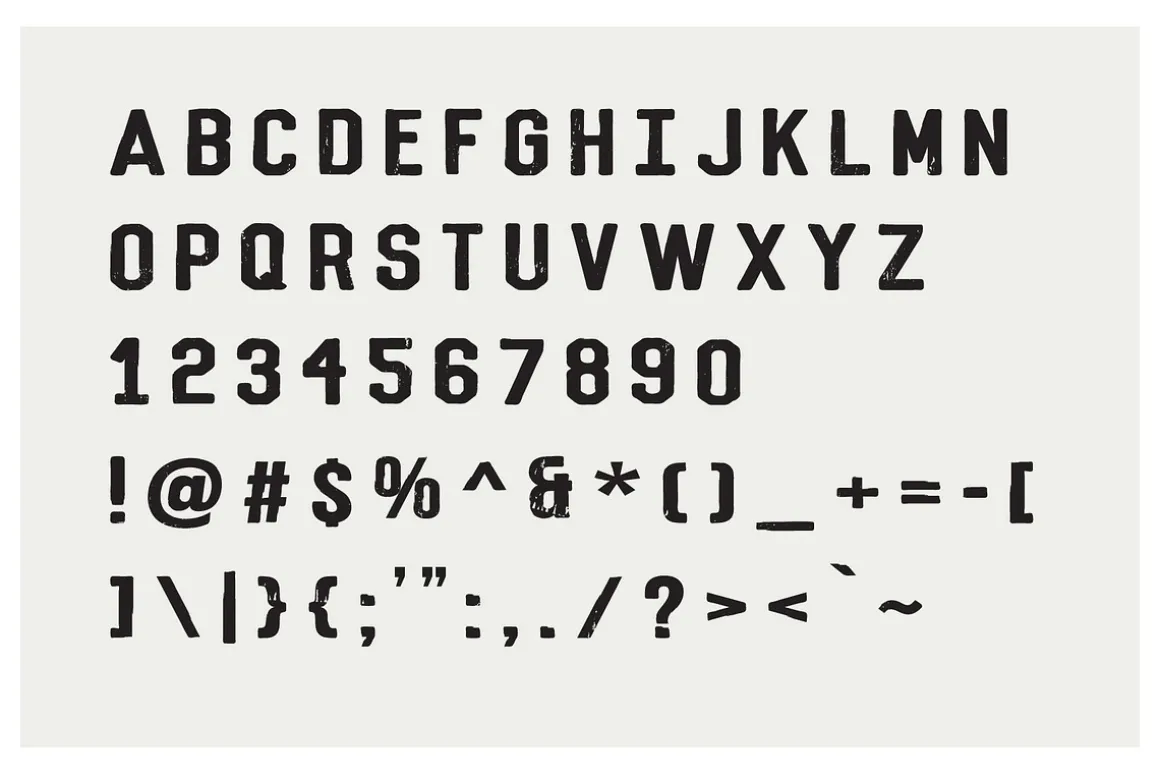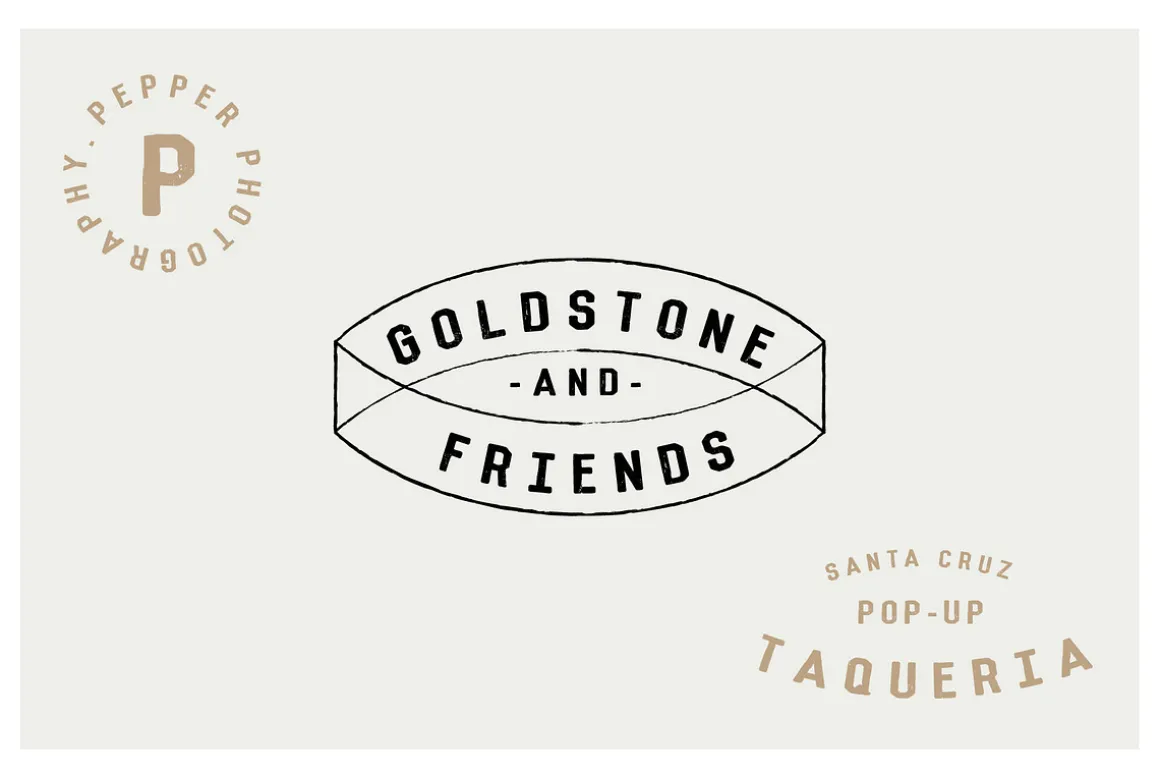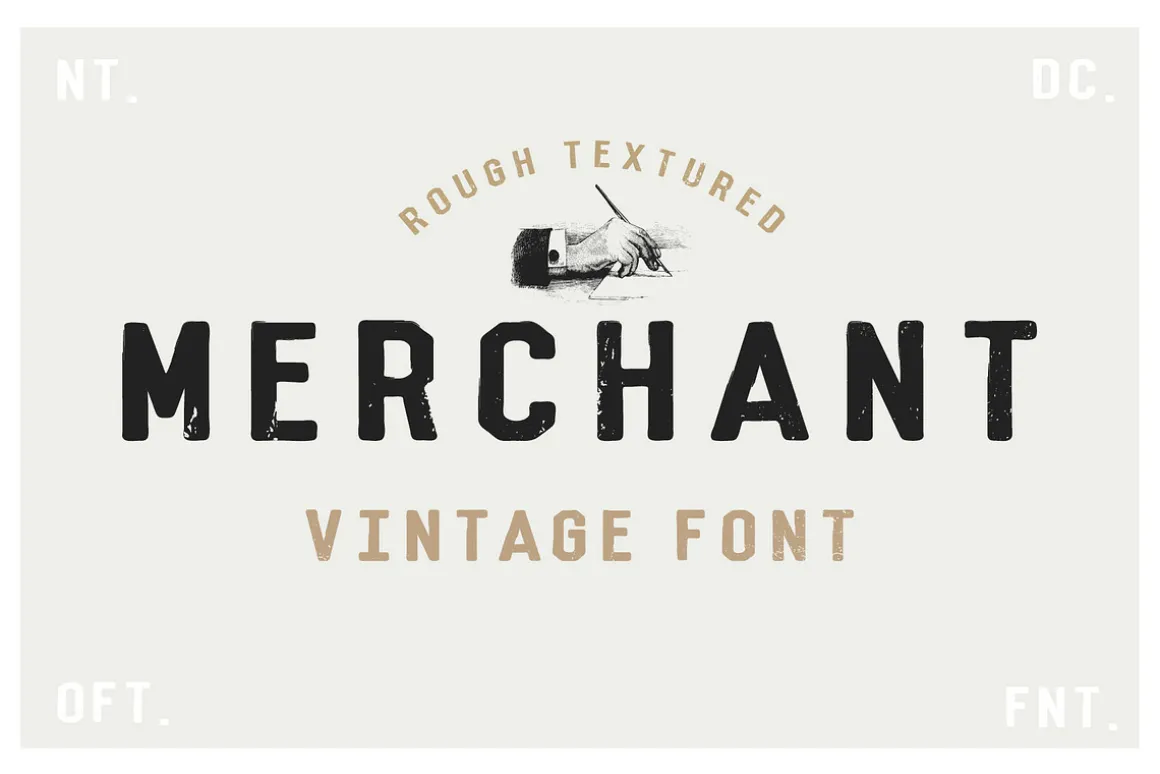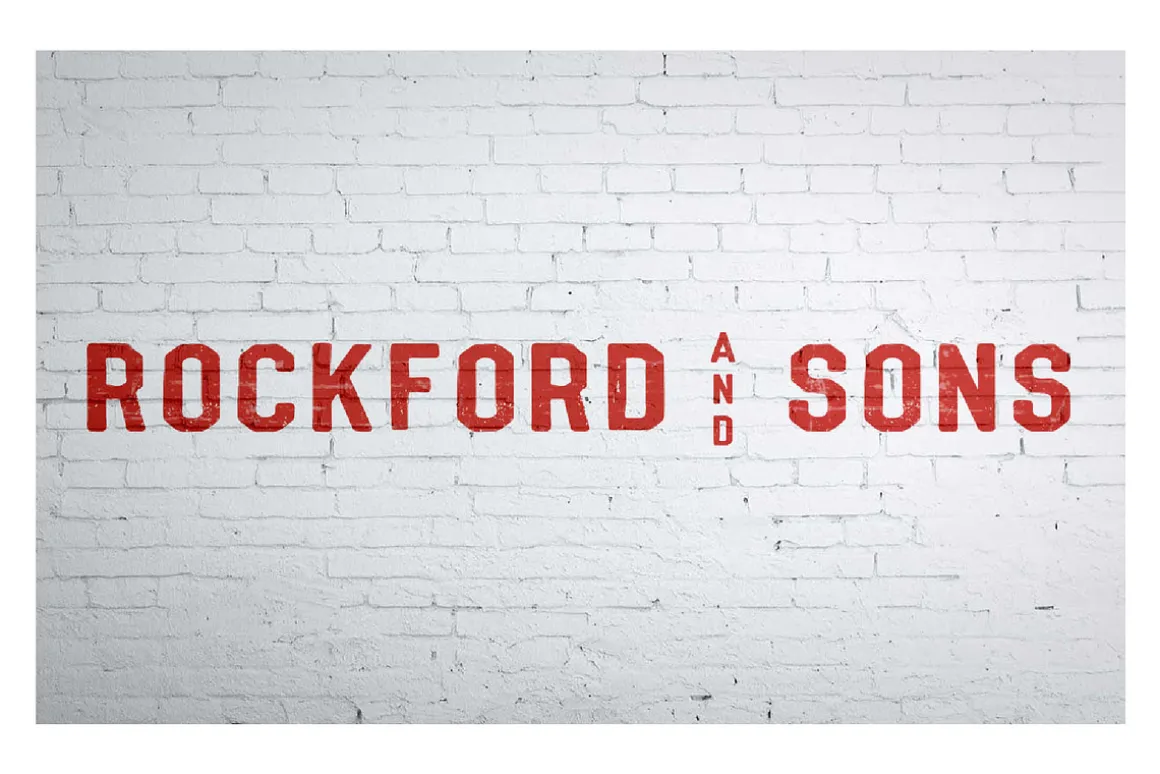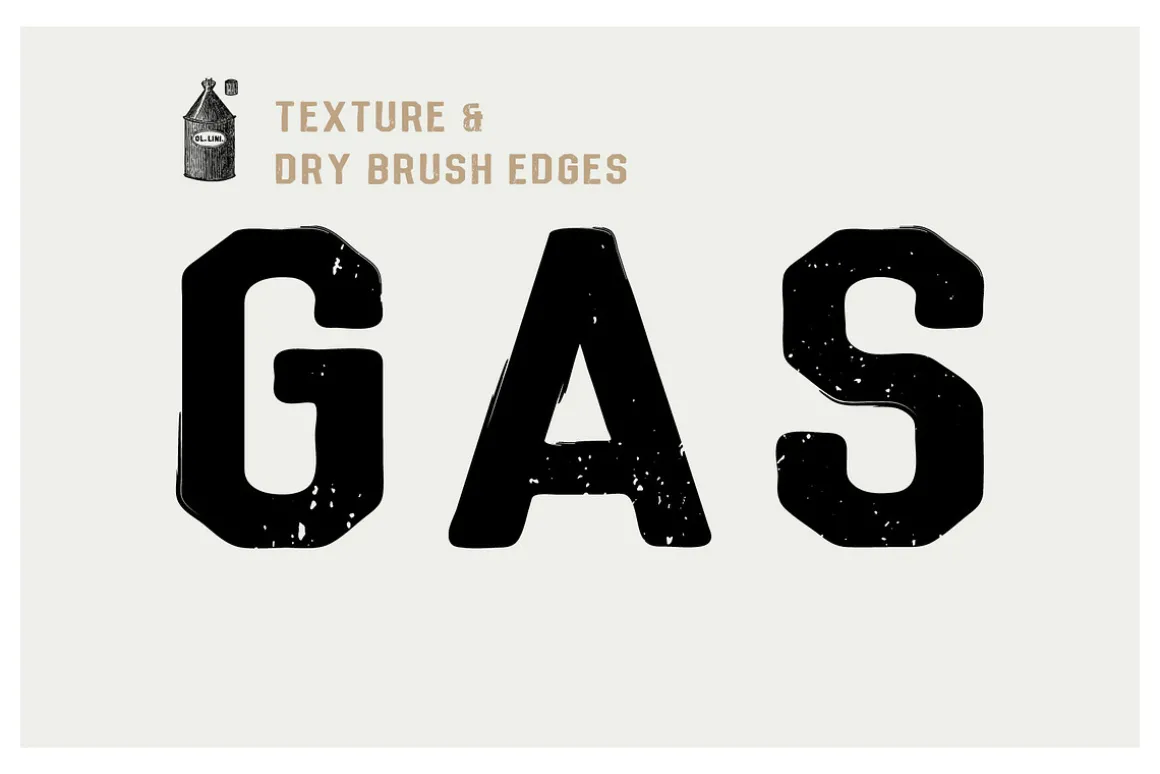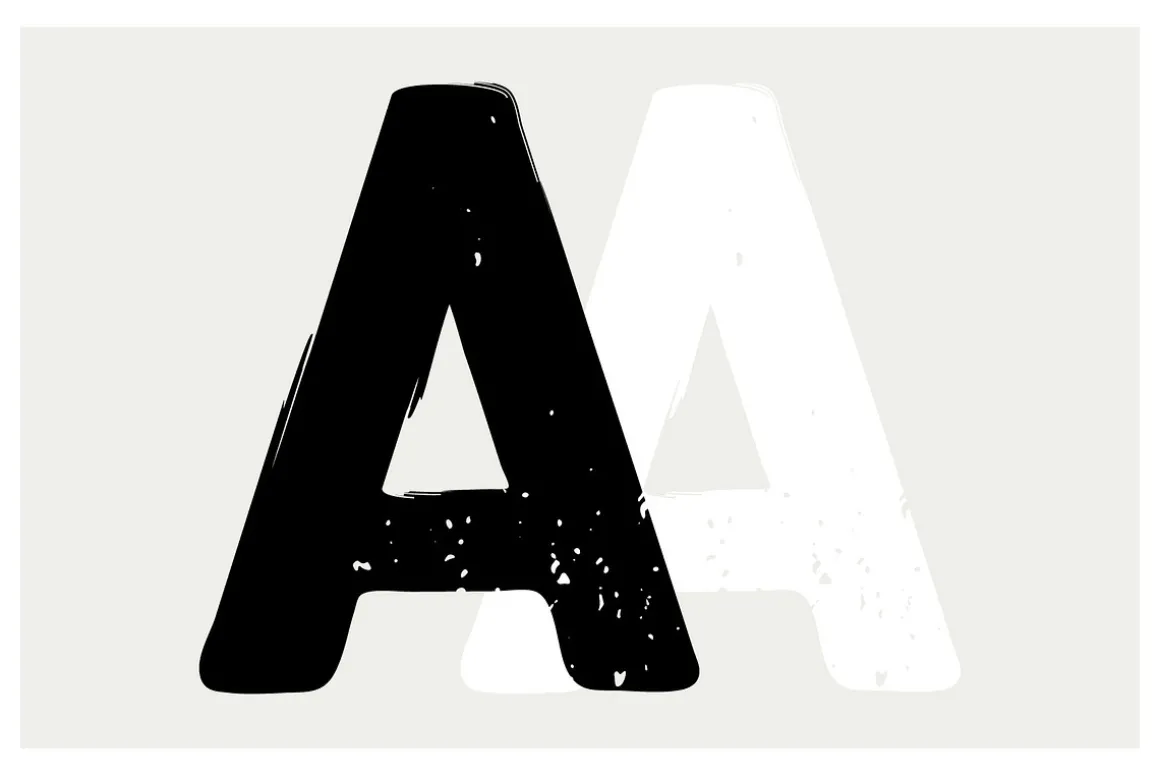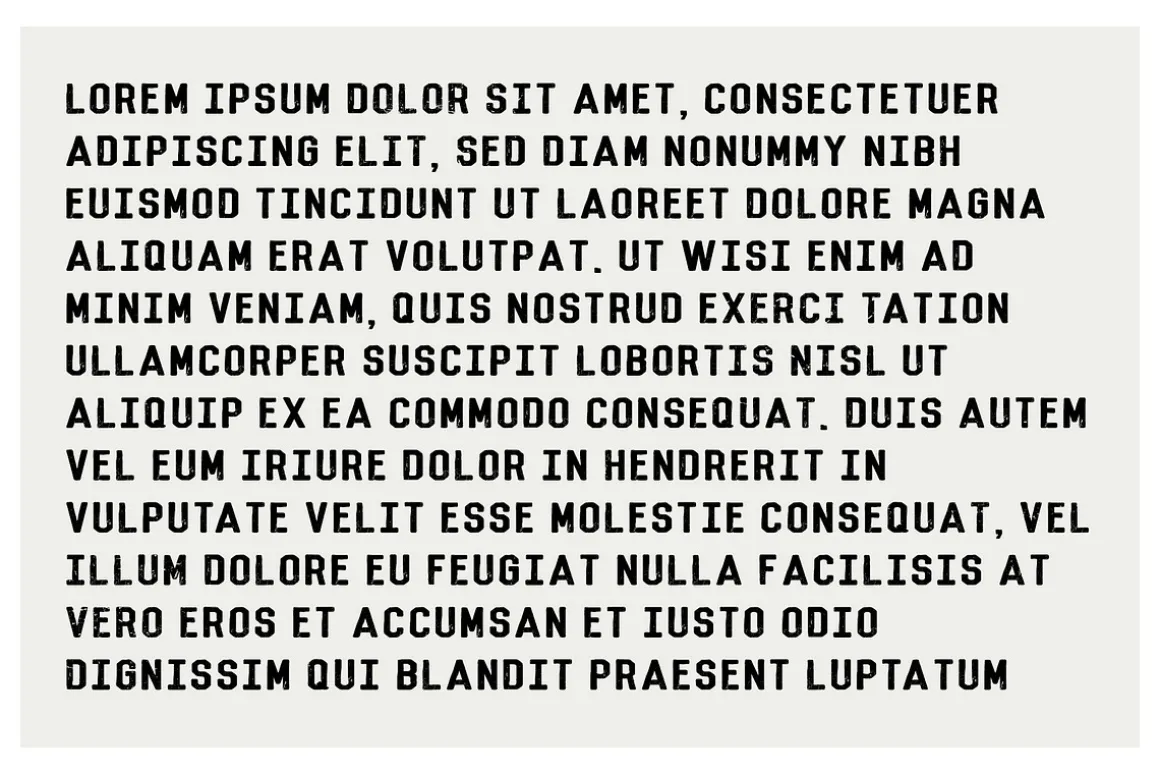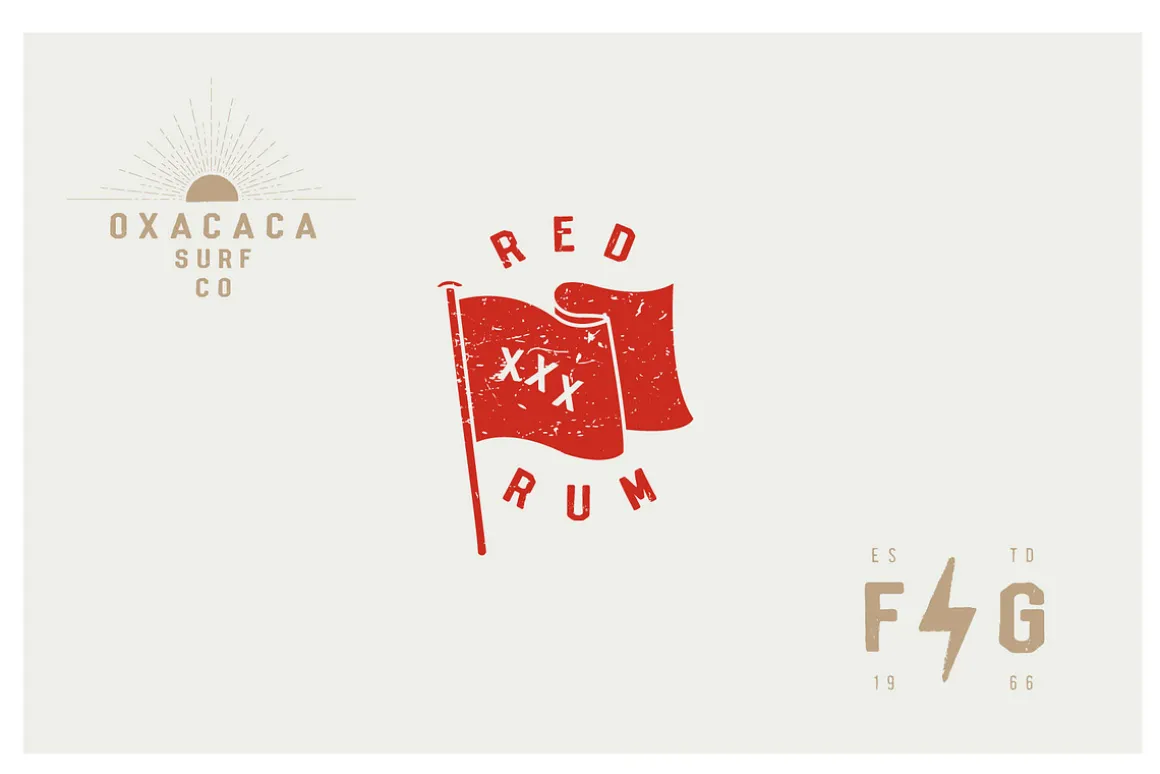
A bit old school and a bit tough, this otf. font has just the right amount of texture with a subtle dry brush edge. Based off an old photo of a baseball scoreboard, circa 1945. Great for vintage logos or that old sign-writer effect.